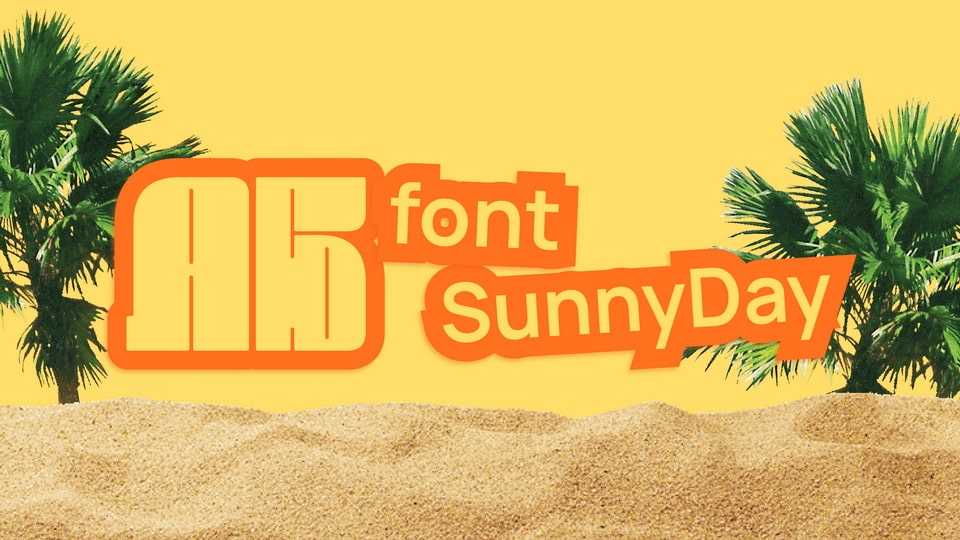
Download SunnyDay font, an experimental typeface inspired by summer mood. It features high contrast and a large shape. It is a student work, so the font may not be perfect in places, but it is great for headlines and large lettering.
Designer: Nadya Sysolyatina